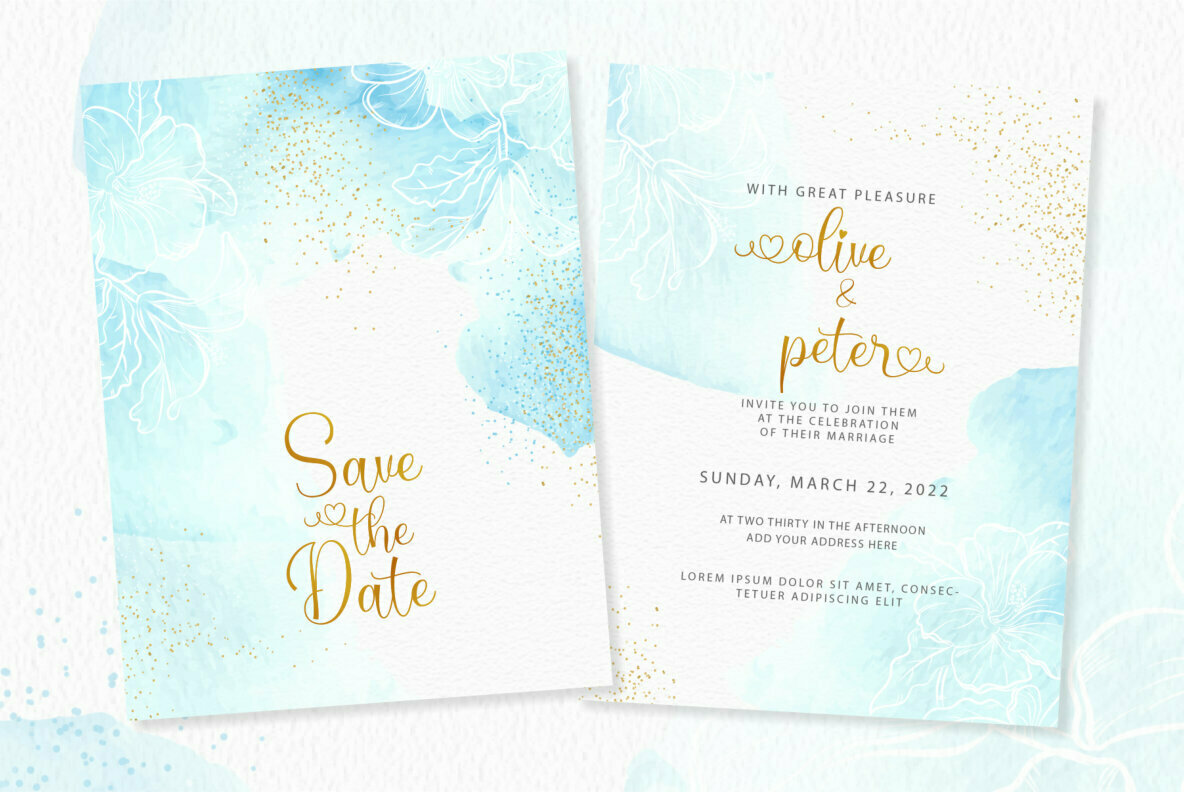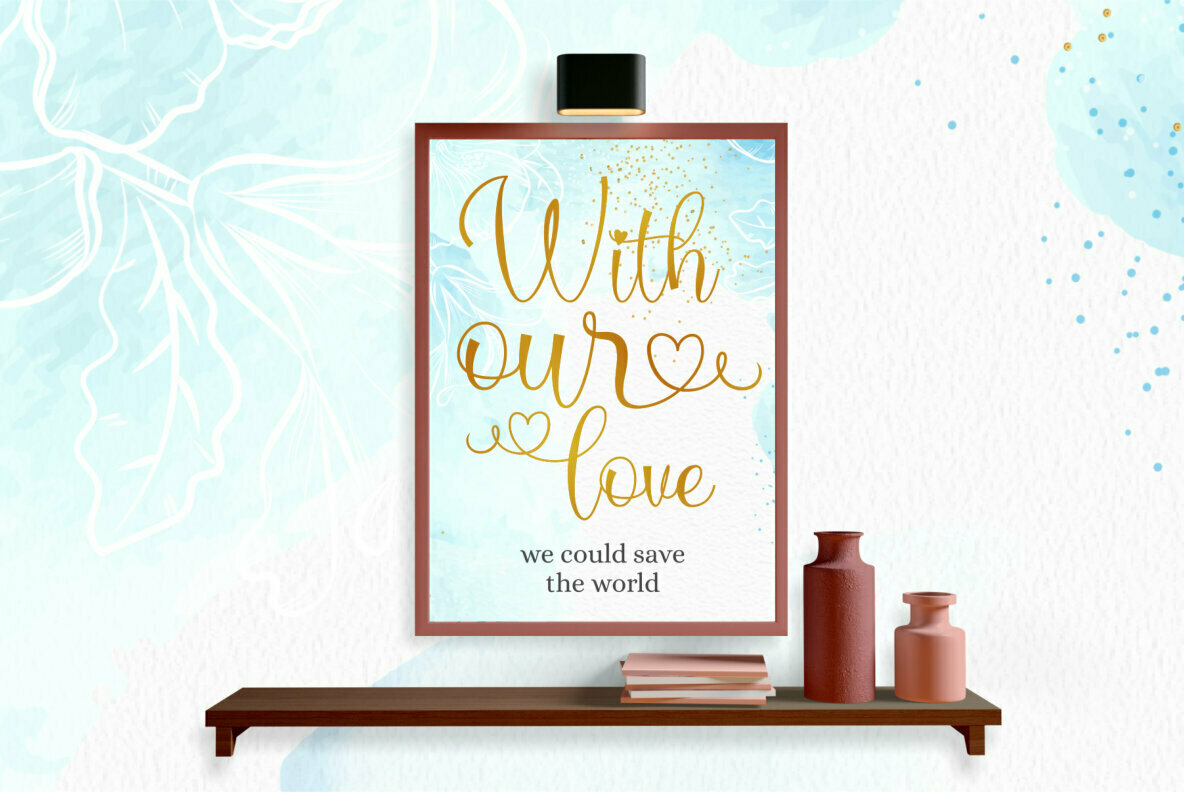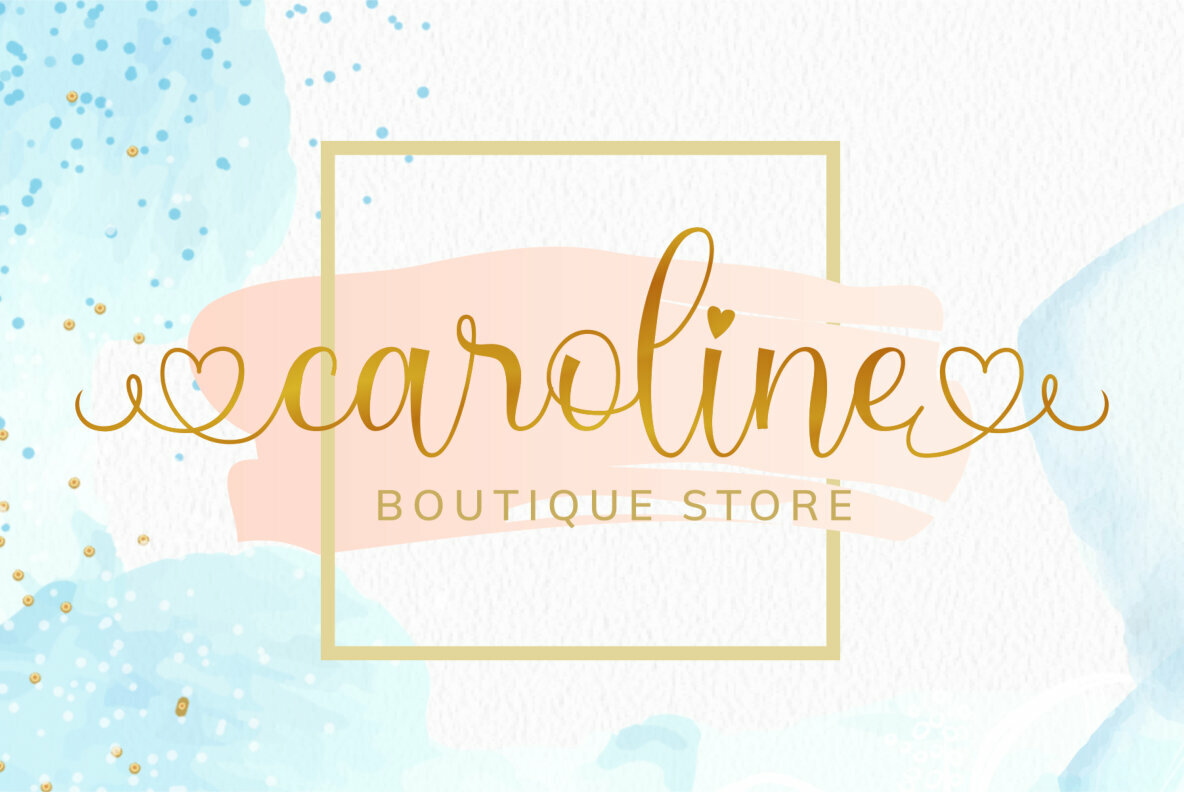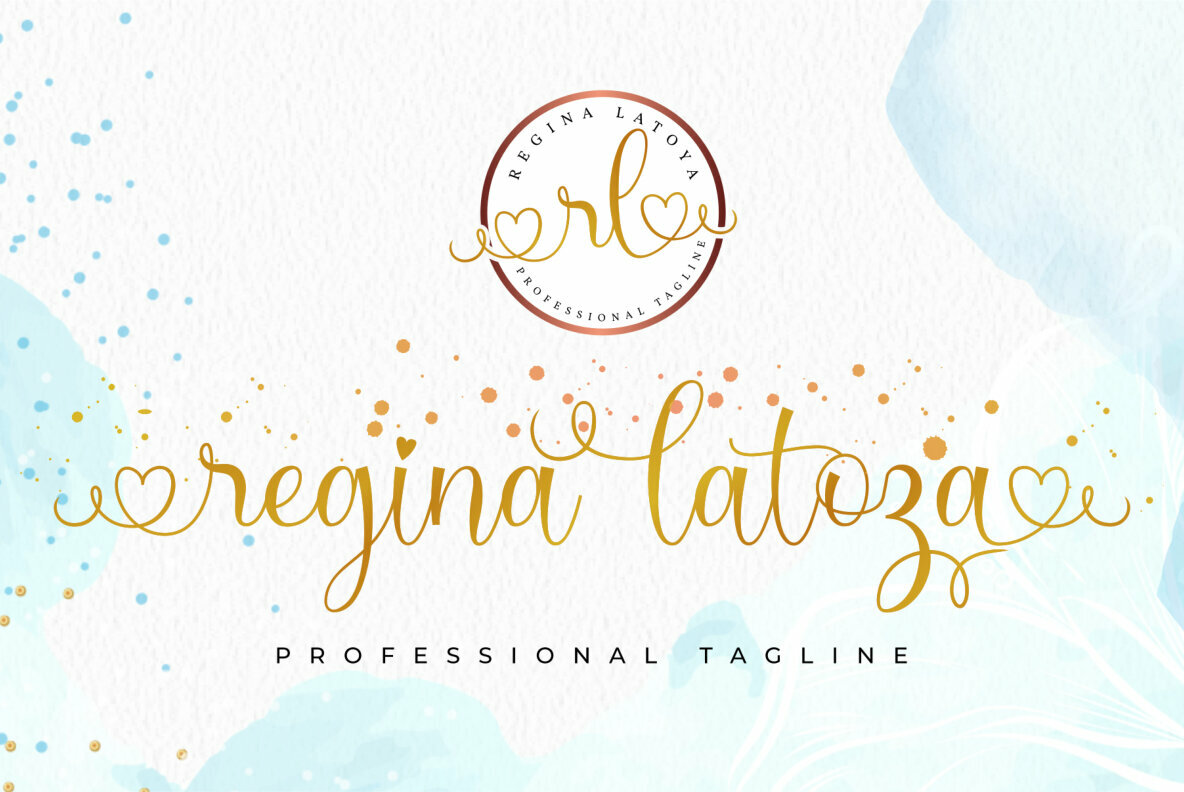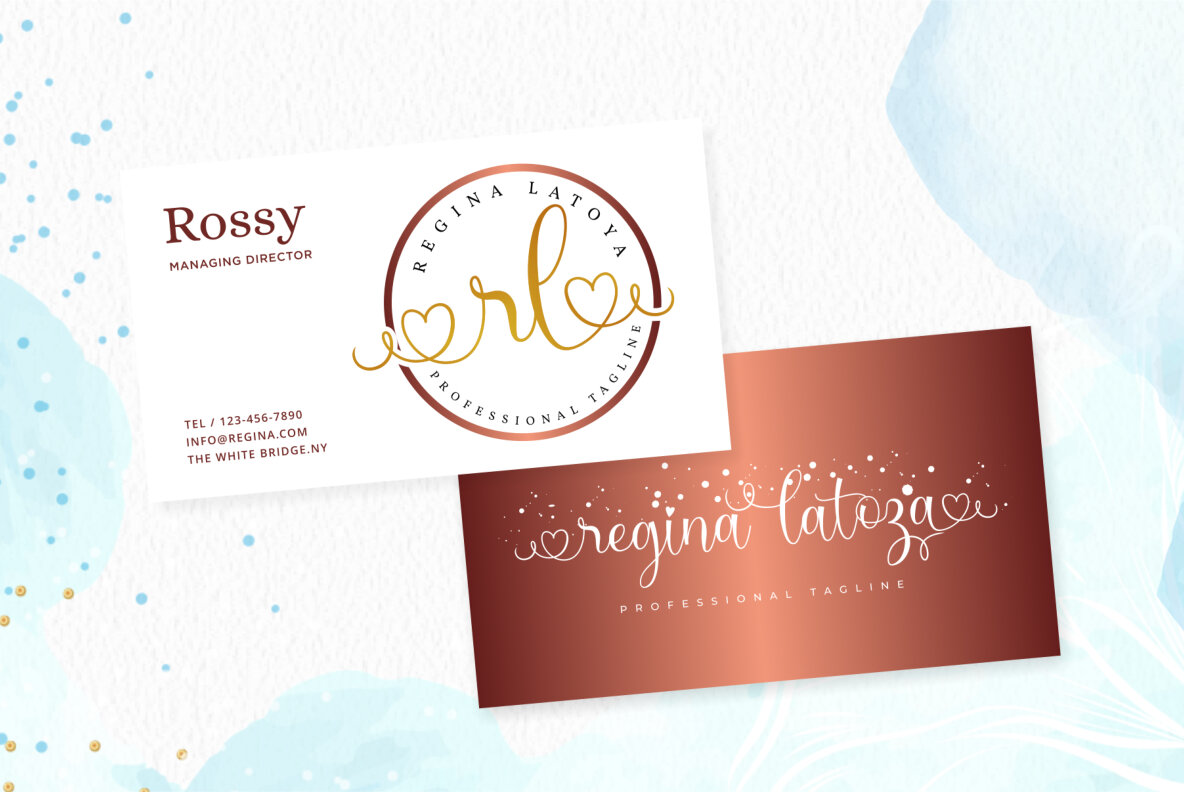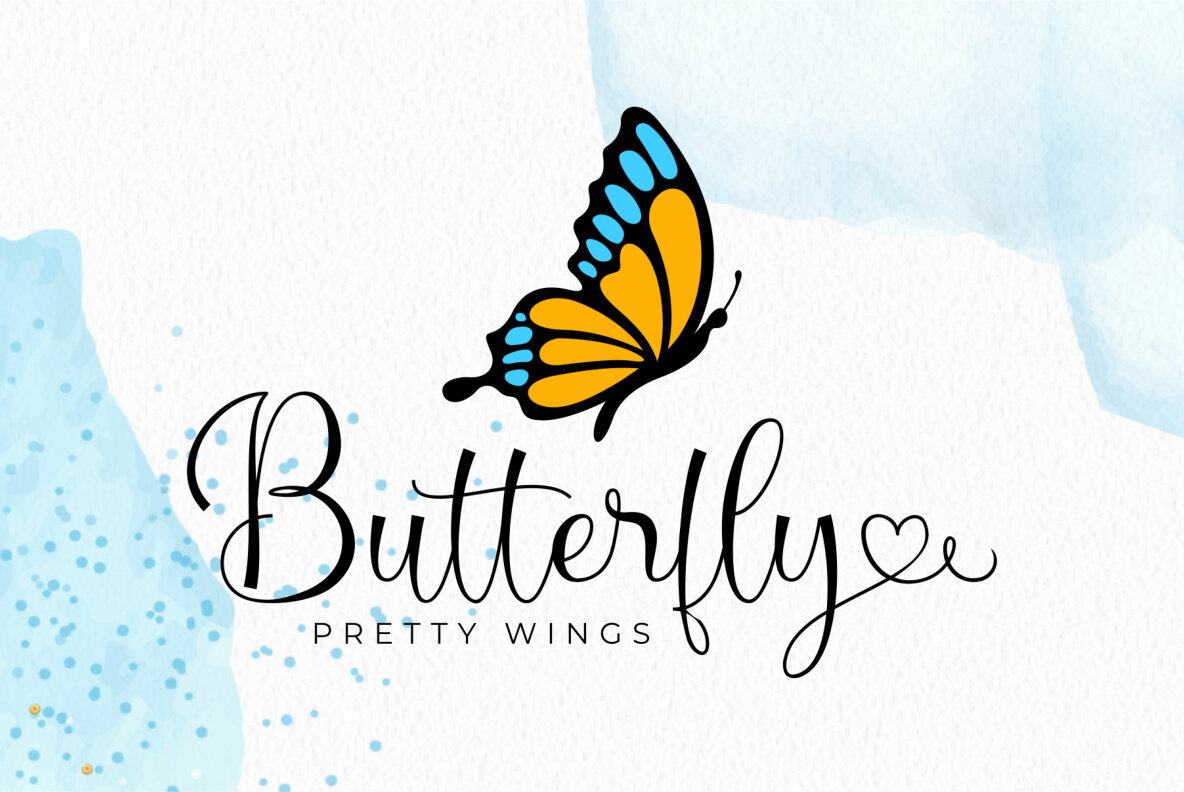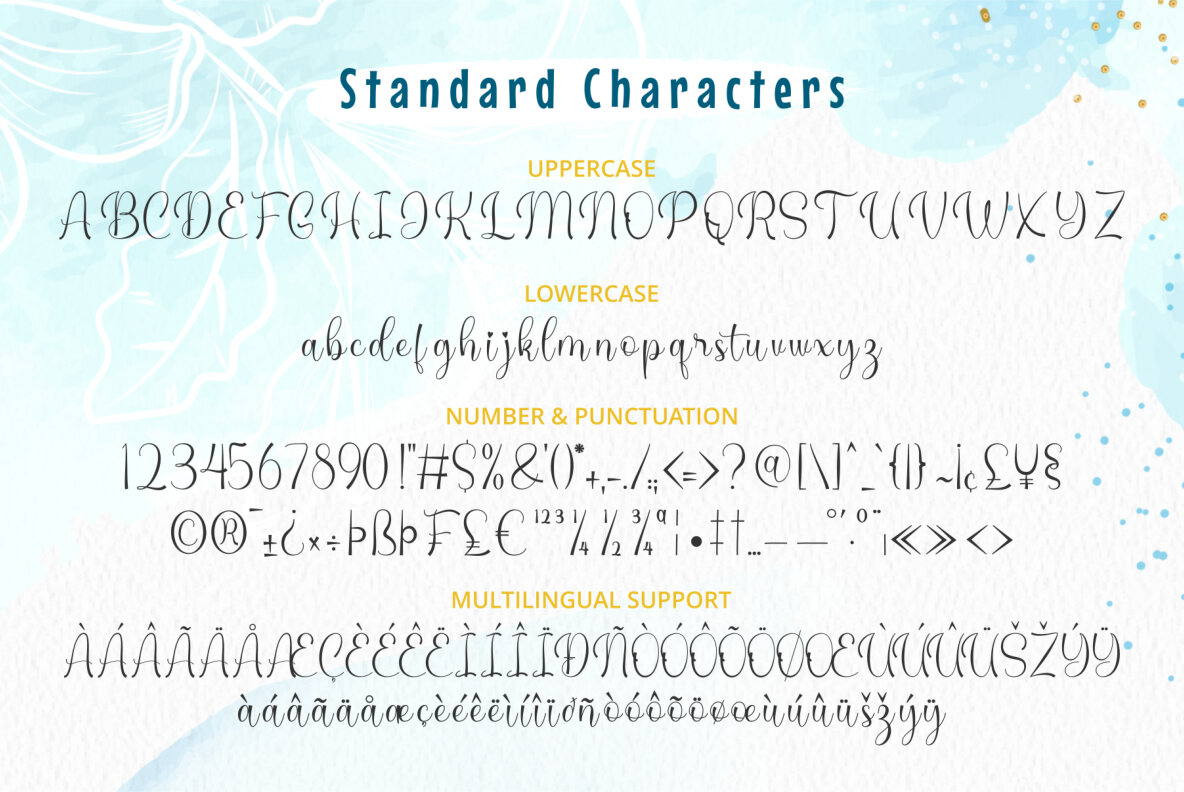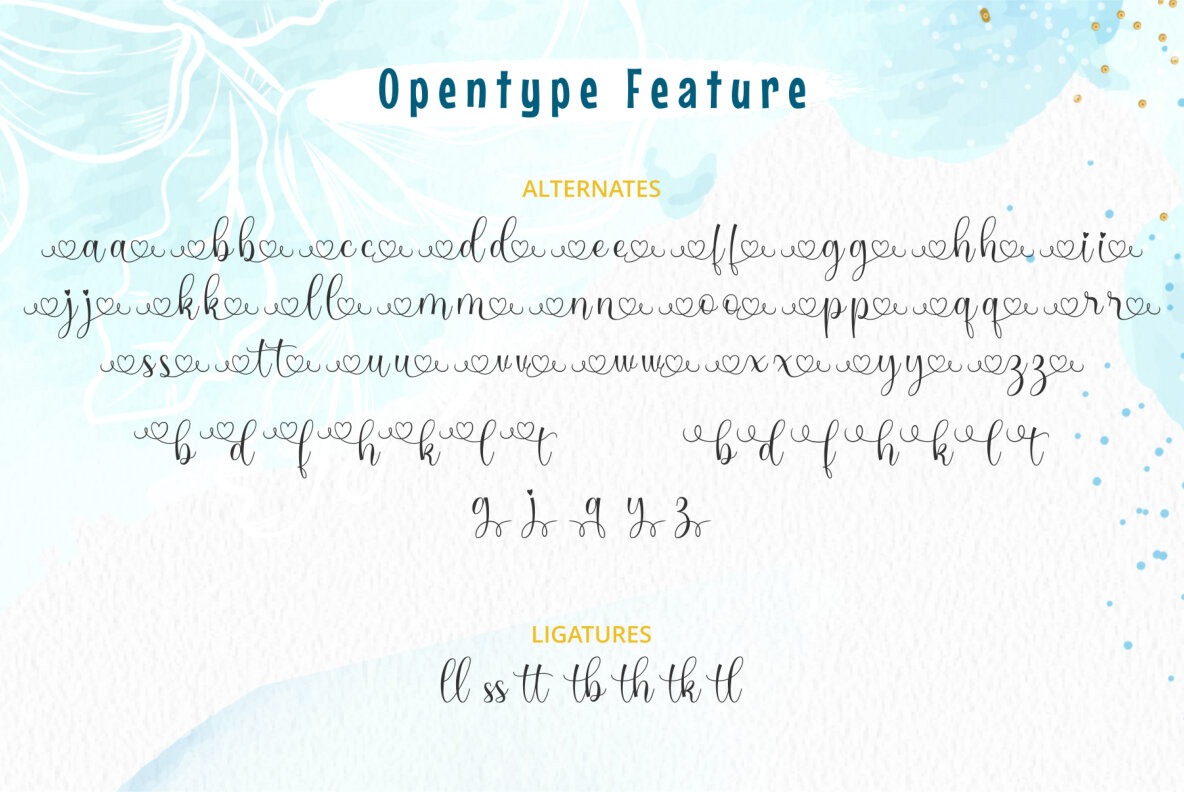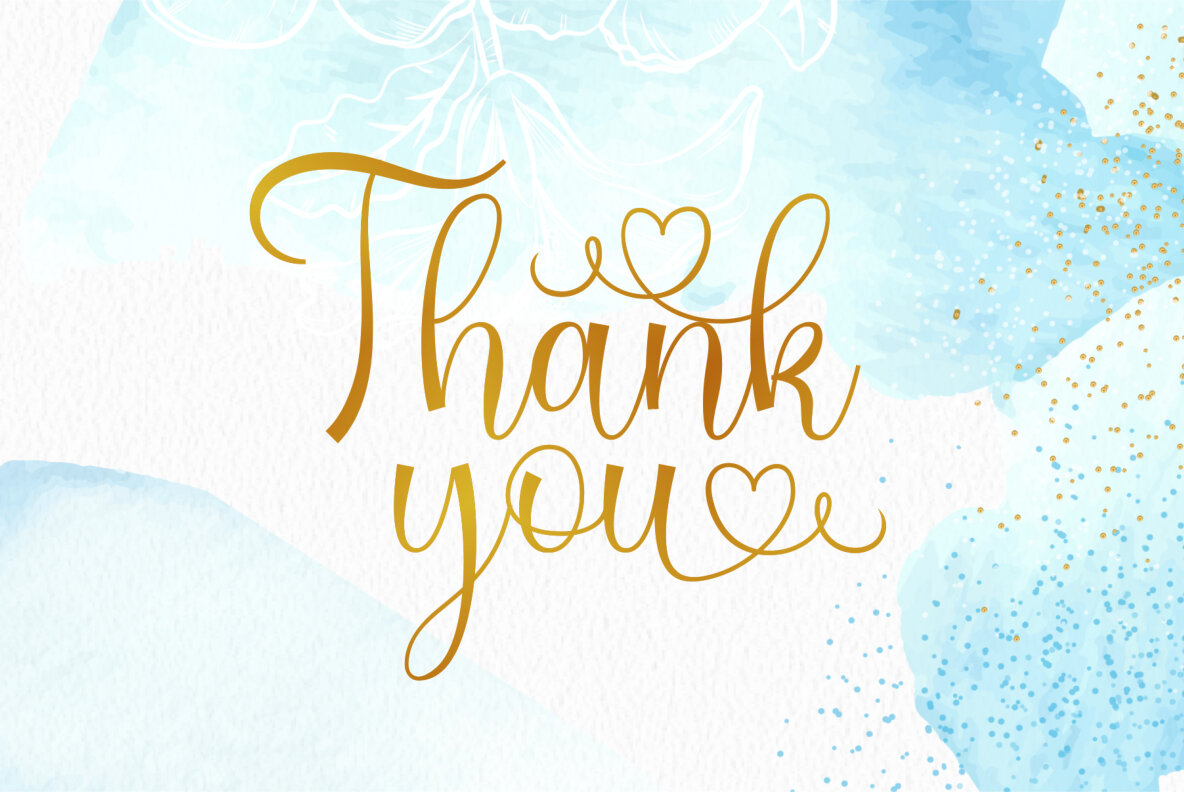
Maliya Font
Maliya
Maliya exudes elegance and fluidity through exquisite handwritten strokes. This typeface captures attention with its romantic swashes, delivering an authentic touch to various design projects.Maliya: An Elegant Handwritten Font